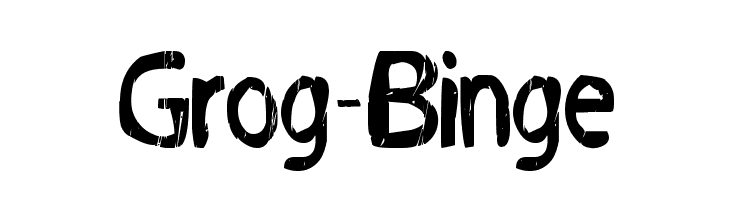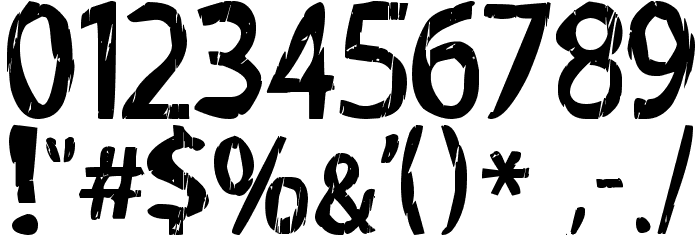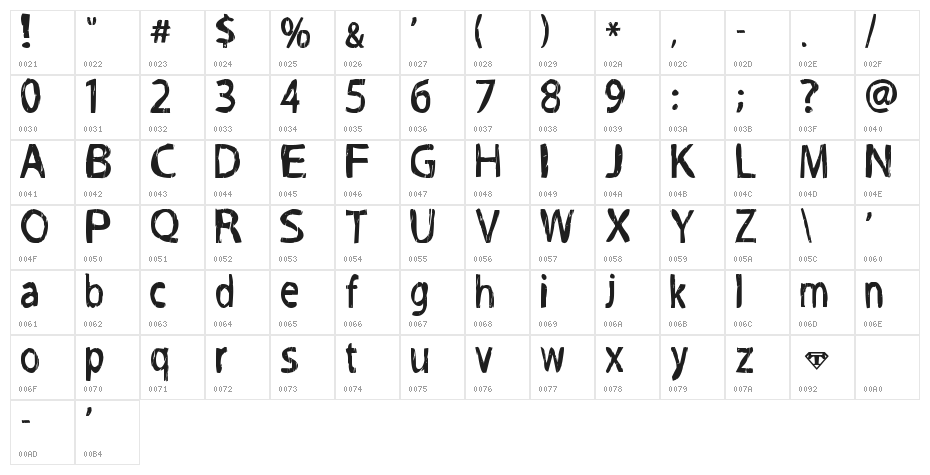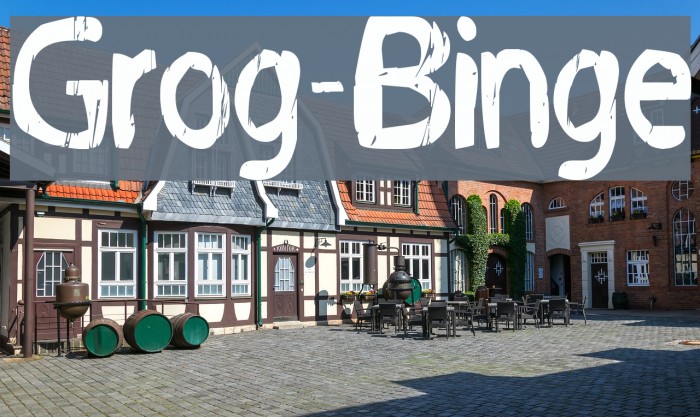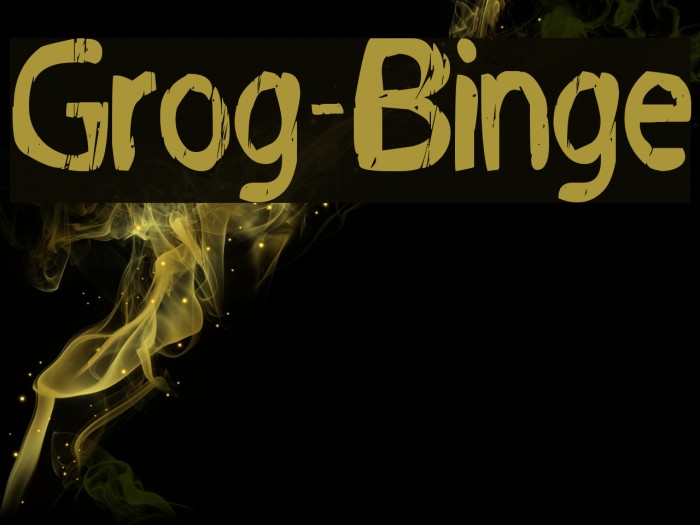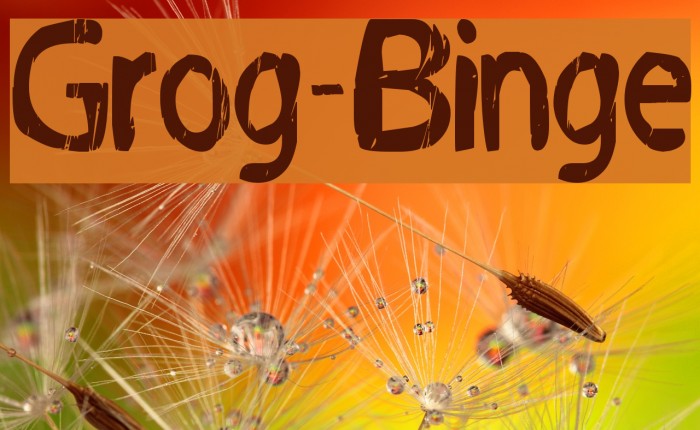
Grog-Binge Font
Grog-Binge Description
This font features a bold, distressed style with a rough, textured appearance that gives it a rugged and edgy feel. The characters are bold and substantial, with irregular edges and a hand-crafted look that suggests a sense of movement and energy. The uppercase and lowercase letters maintain a consistent style, while the numerals and special characters complement the overall design. This font's unique aesthetic makes it stand out, perfect for projects that require a strong visual impact.
| Overall Style | Edgy, Rugged, Distressed |
| Proposed Projects | Ideal for posters, album covers, branding for edgy products, or any project needing a bold, impactful statement. |